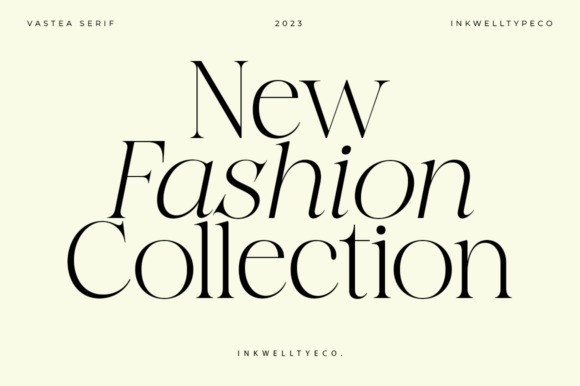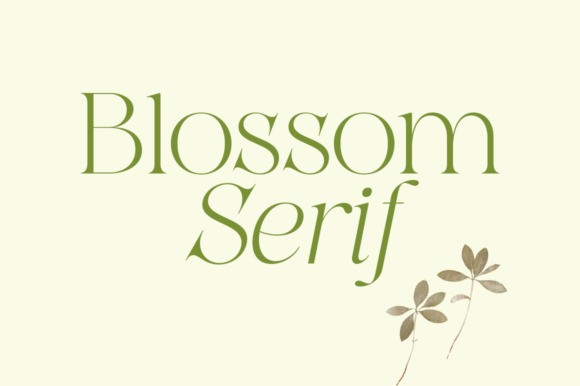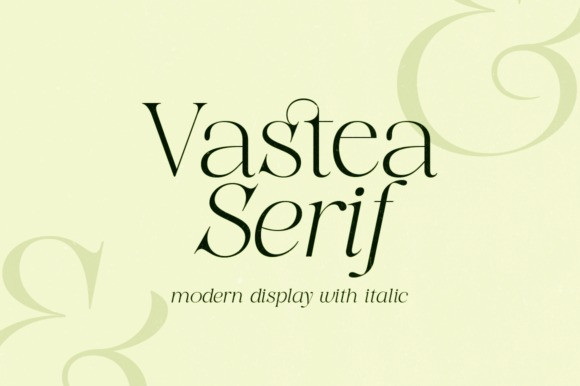
Vastea Serif Font
Vastea Serif Font is a cutting-edge font that seamlessly blends the boldness of display typography with the fluidity of italic style. This font offers a captivating mix of strong and expressive letterforms with a touch of dynamic energy. The result is a visually striking and versatile typeface that effortlessly catches the eye.
Vastea Serif is perfect for design projects that require a unique and captivating visual presence. Its bold display characteristics command attention, while the subtle italic elements add a sense of movement and flexibility. Whether used in large titles, posters, or logos, Dynamic Fusion adds a touch of creativity and sophistication to any design.
In summary, Vastea Serif is a font that combines the best of both worlds, merging the commanding presence of display with the elegant flow of italic style. Its versatility makes it an excellent choice for various design applications, offering a visually engaging and impactful typographic solution.